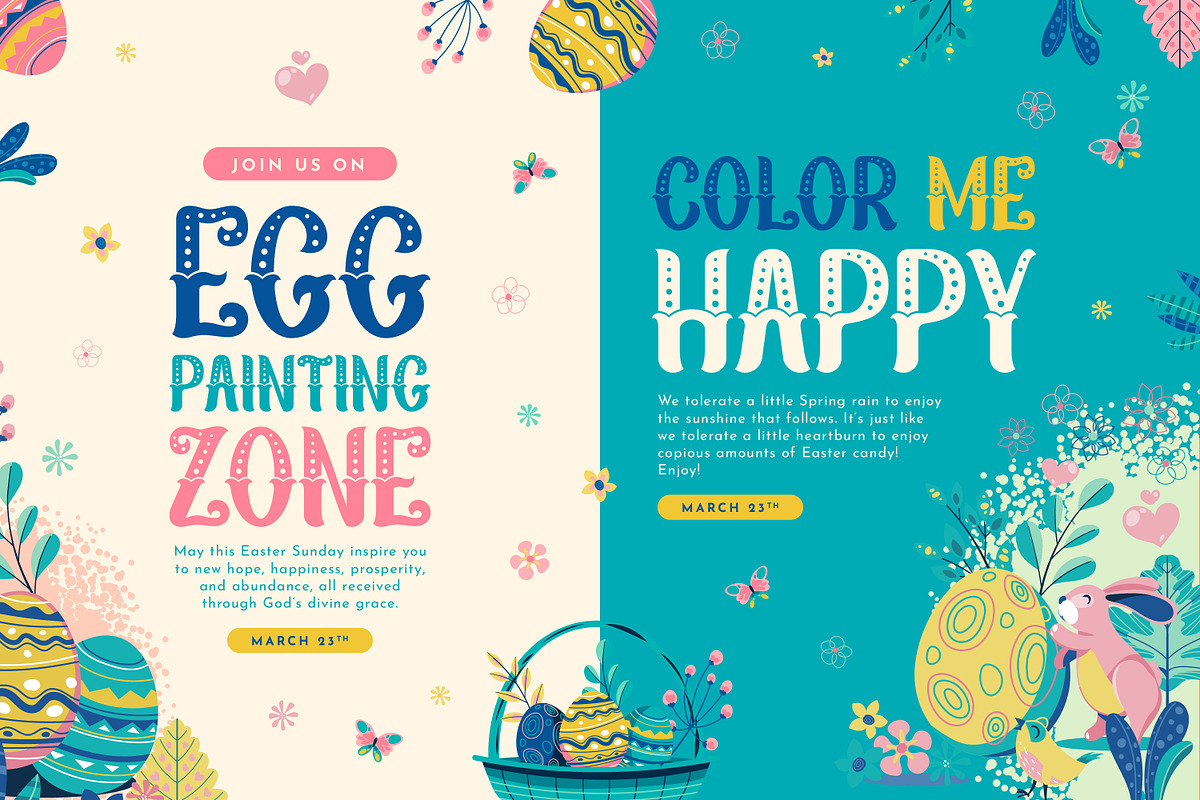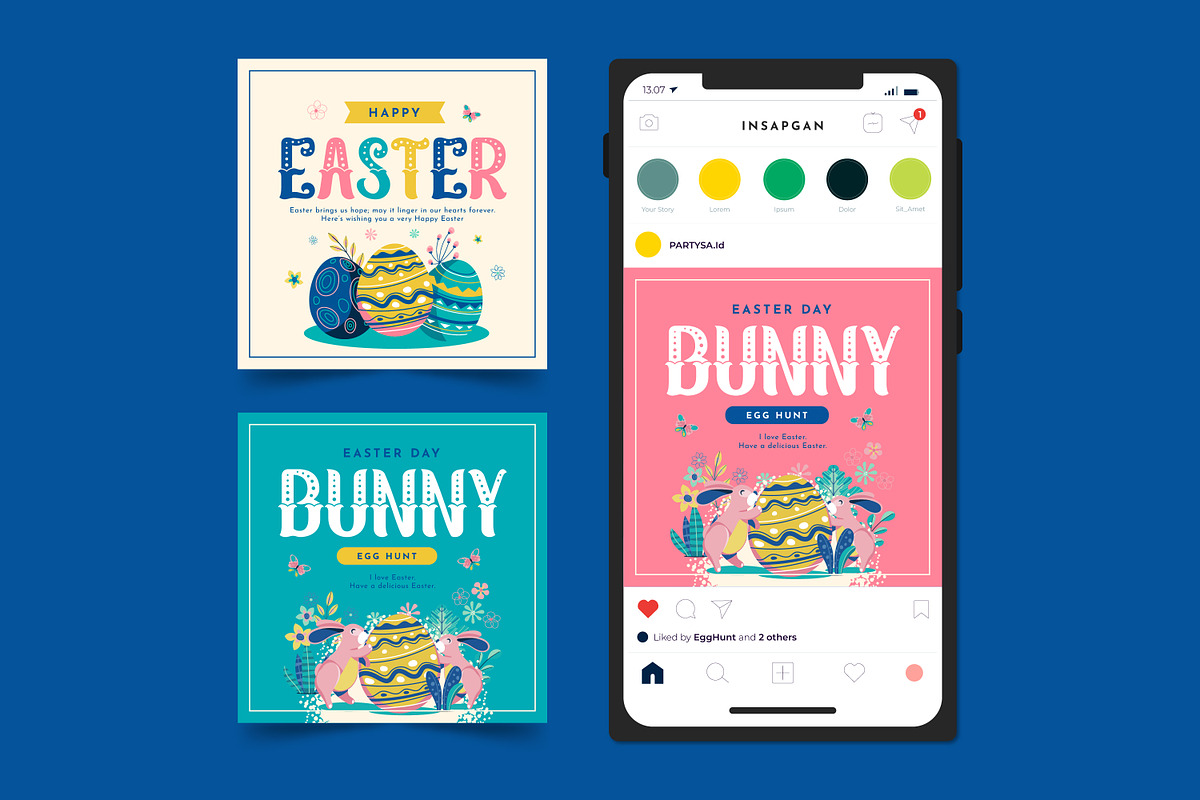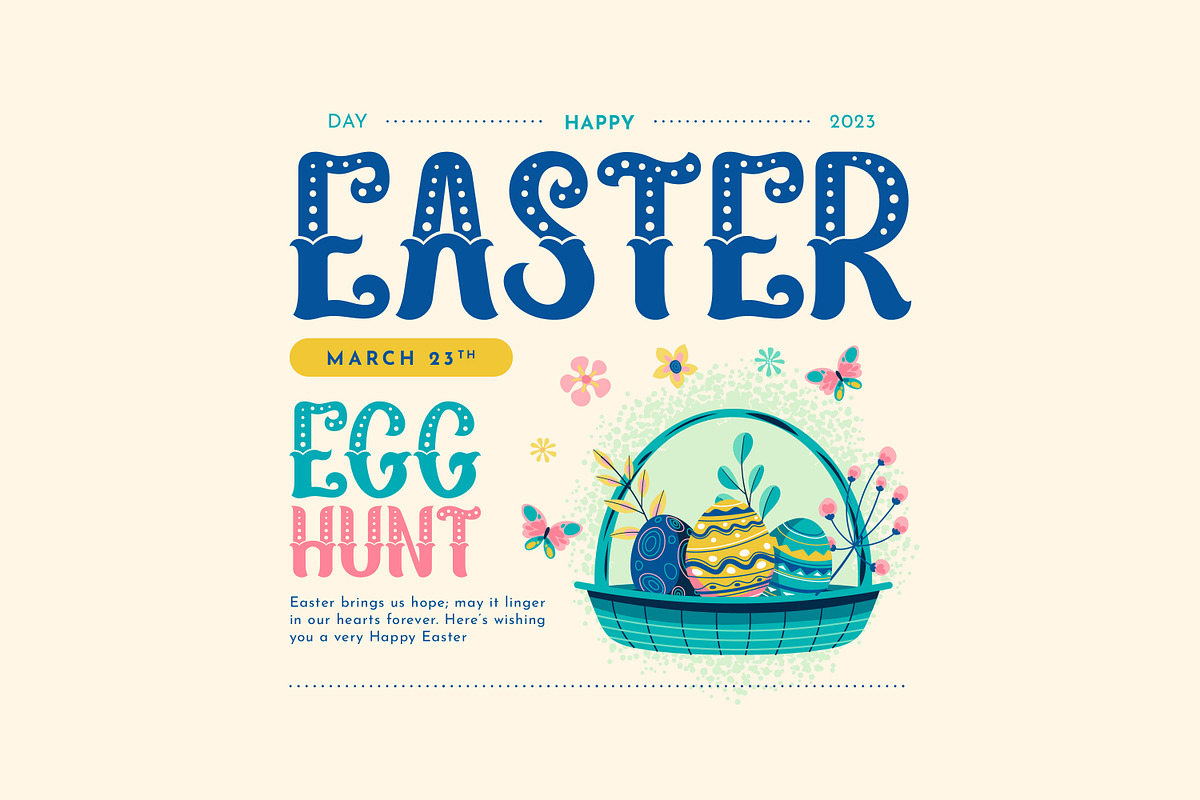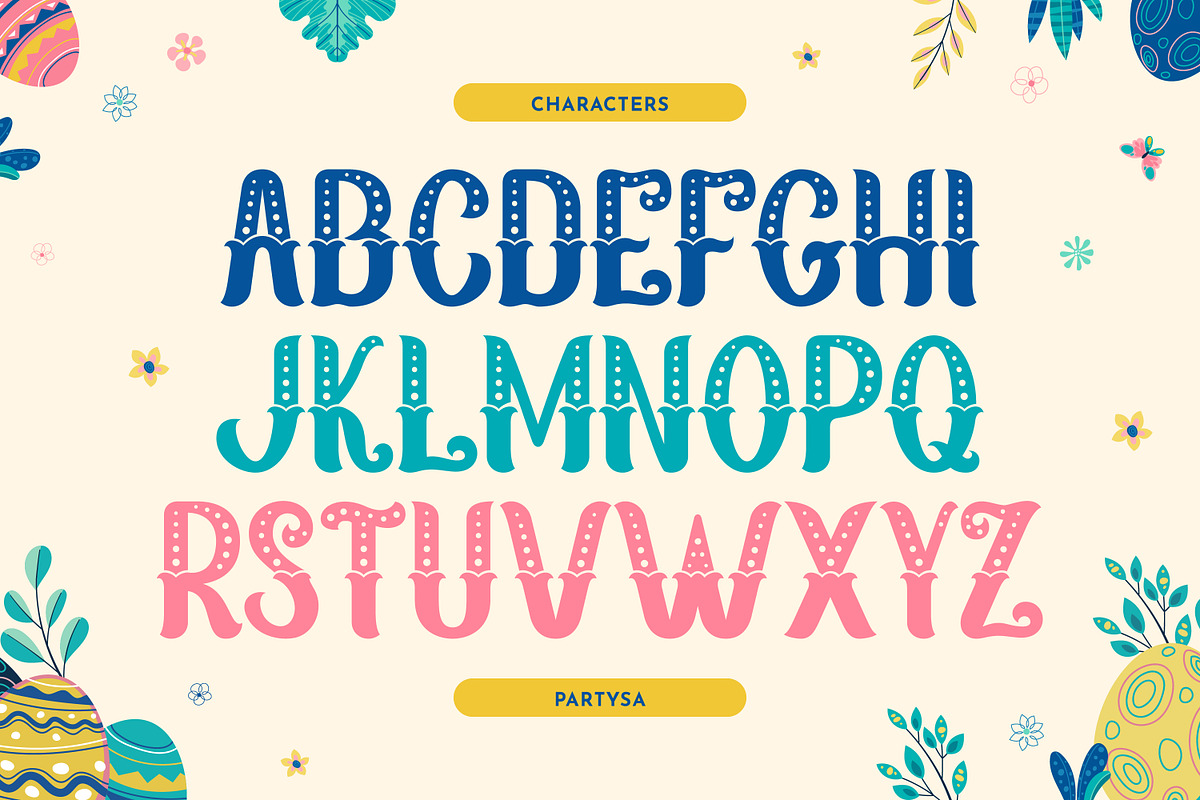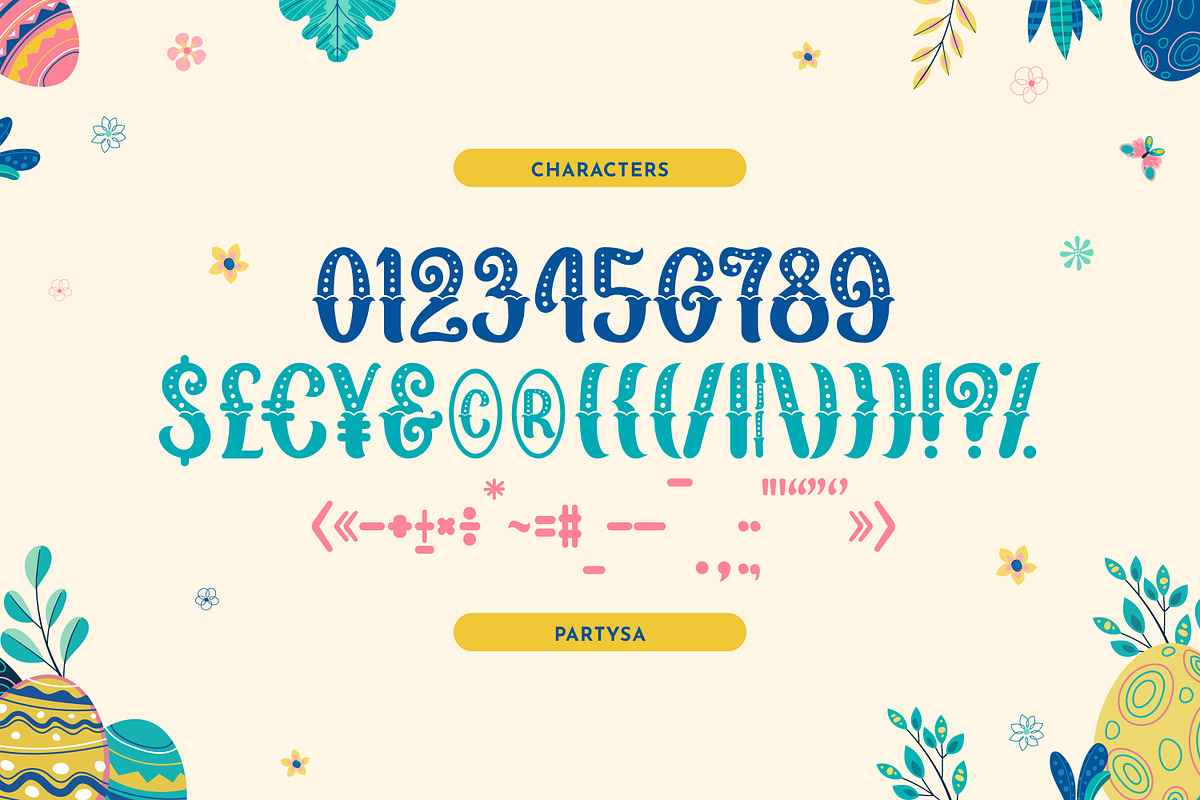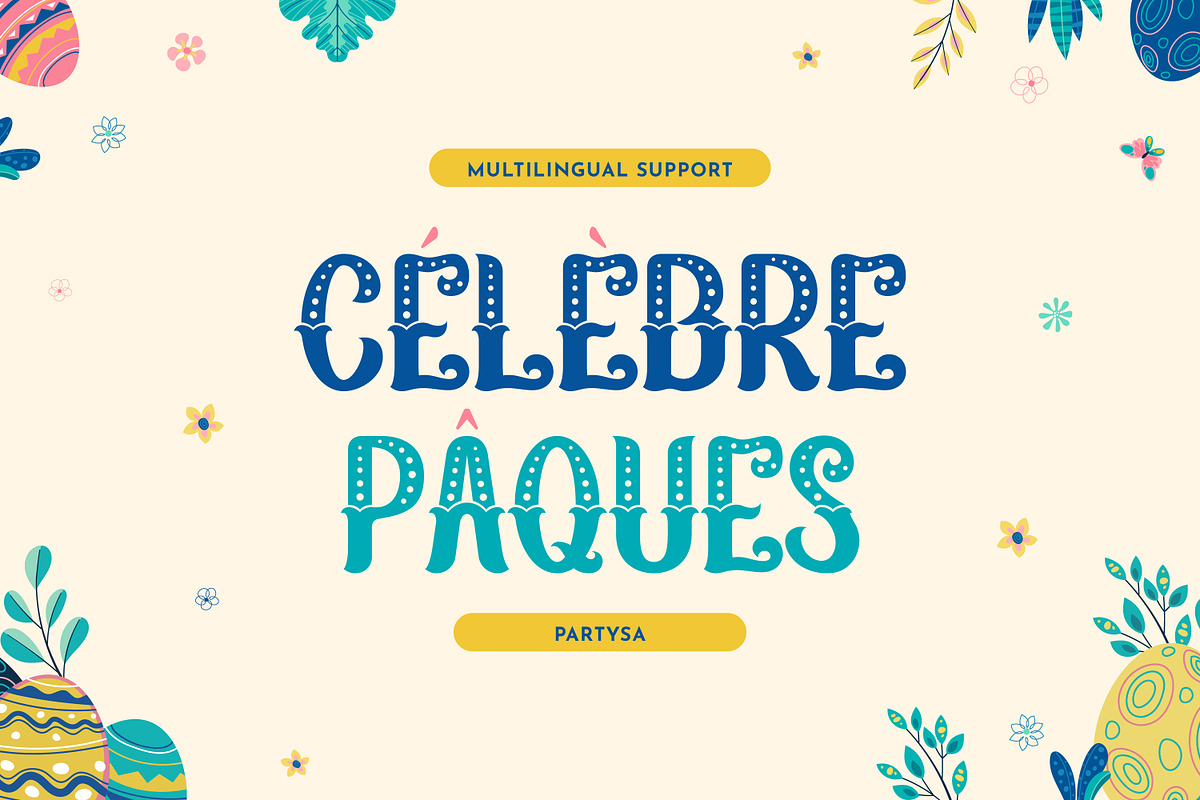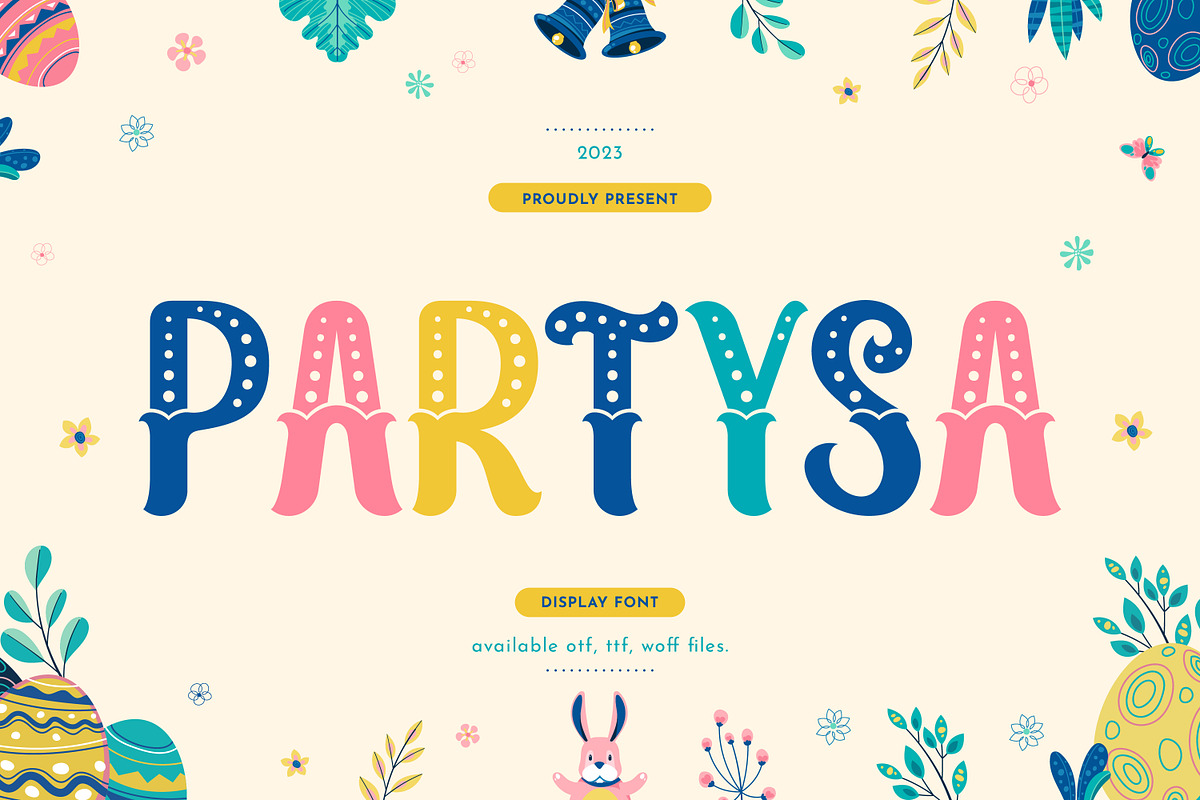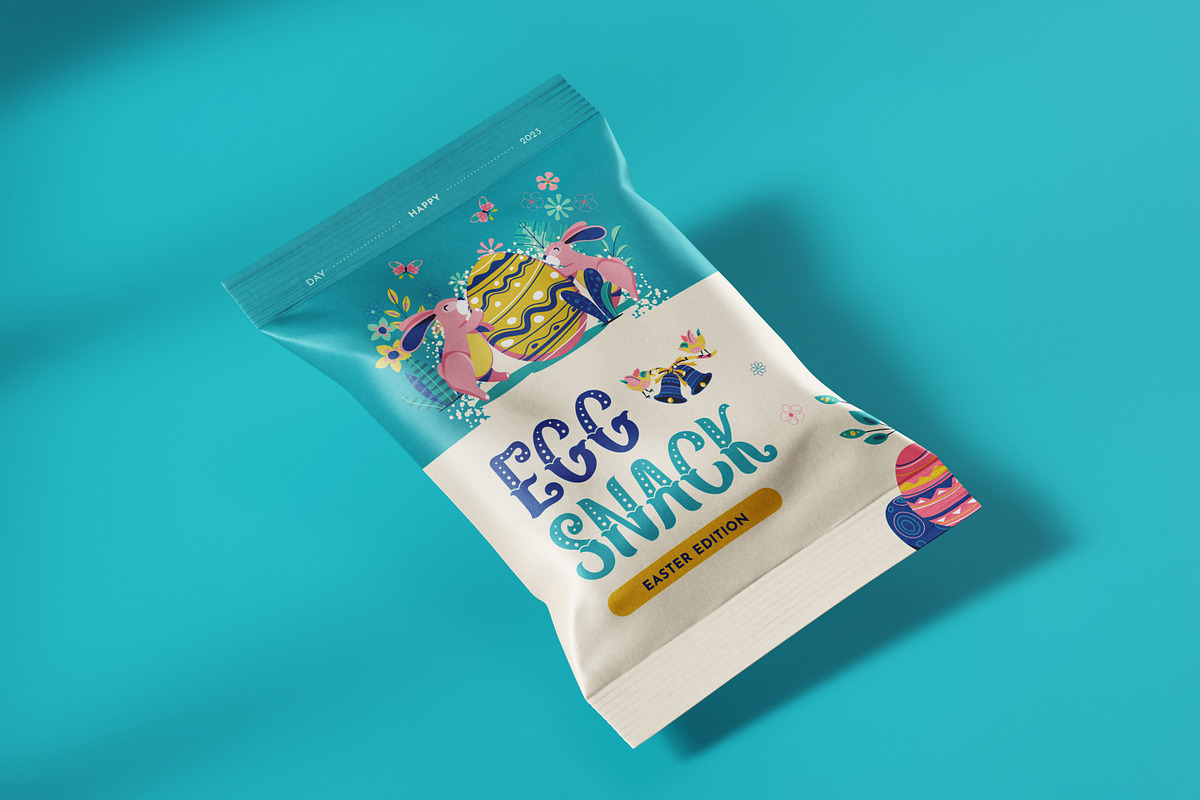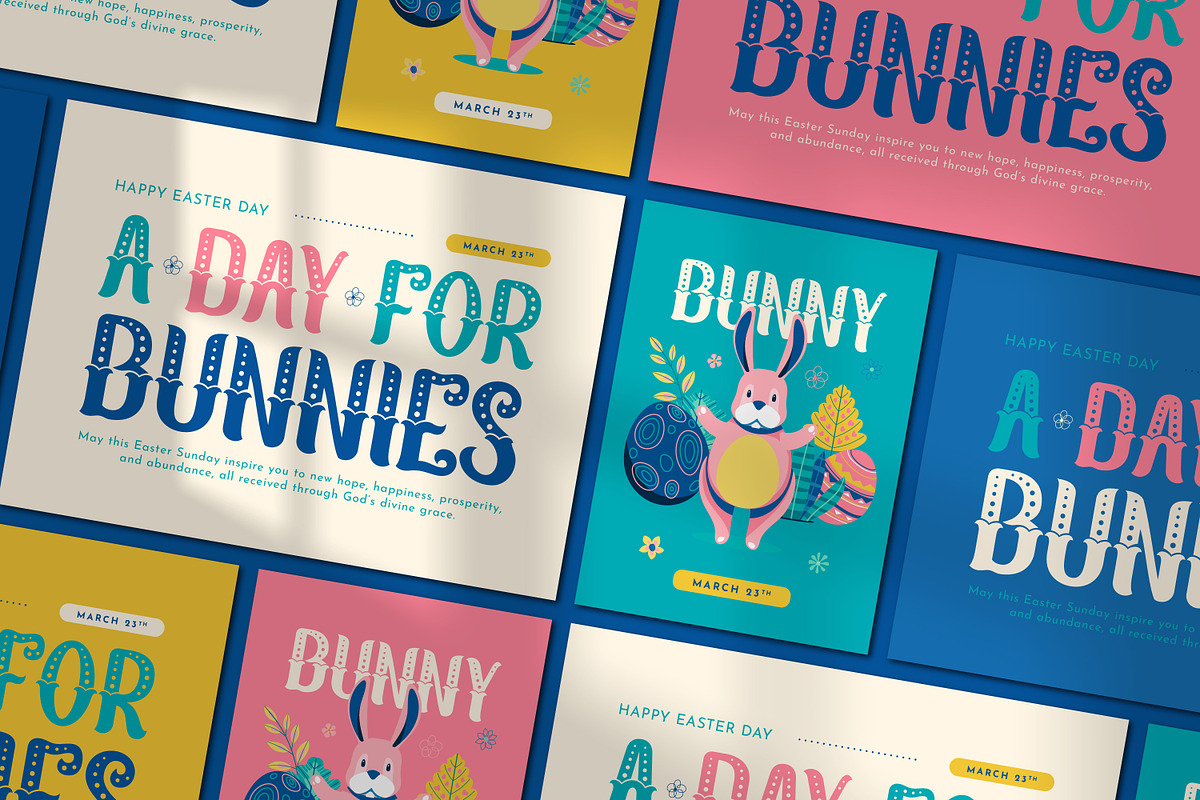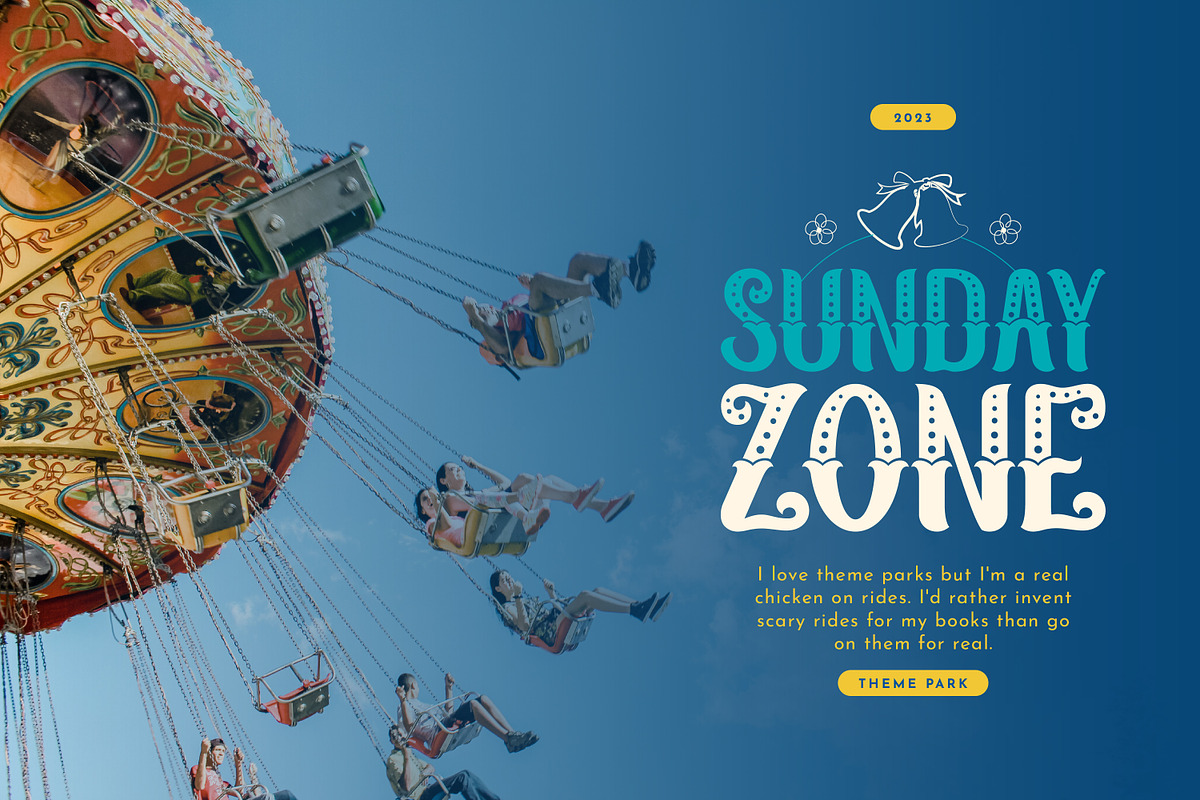
Partysa Display Handwriting
Partysa is a joyful and energetic display font with playful curves and a bouncy baseline. The font exudes positivity and energy, making it ideal for children’s books, posters, and advertising that aim to capture a lively and light-hearted tone. It’s playful and fun, yet still legible and easy to read.